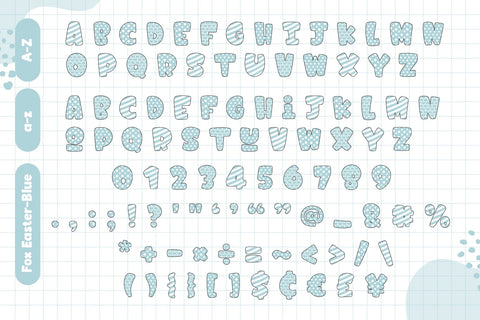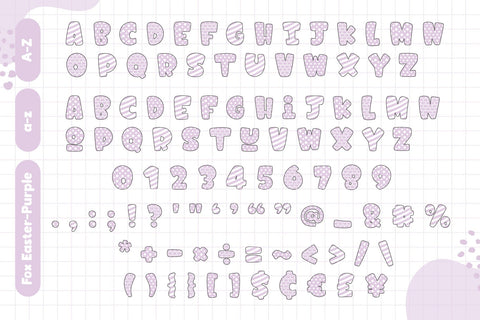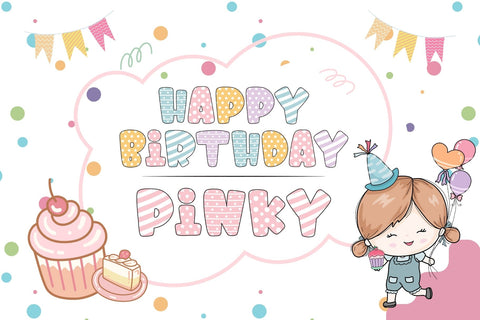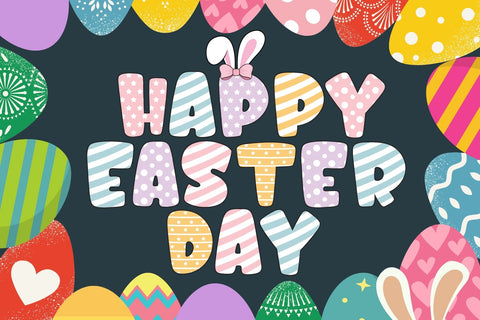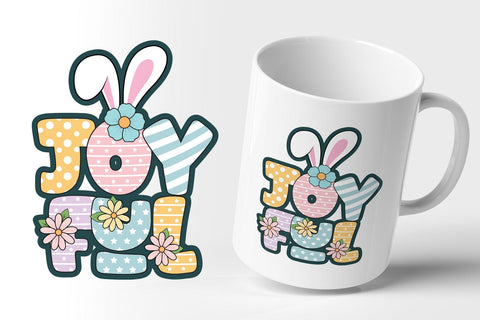
Fox Easter Color (4 Bundle) Fonts
Introducing Fox Easter, a playful and vibrant font ensemble, oozing with charm! With its four distinctive color variations - blue, pink, yellow, and purple - Fox Easter is a versatile choice for a myriad of projects such as blog posts, logos, branding, ads, invitations, greeting cards, planners, photo albums, decorations, and much more. Add it to any of your designs, and enjoy the results!